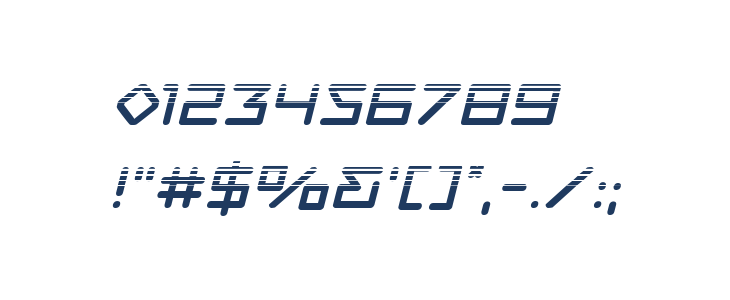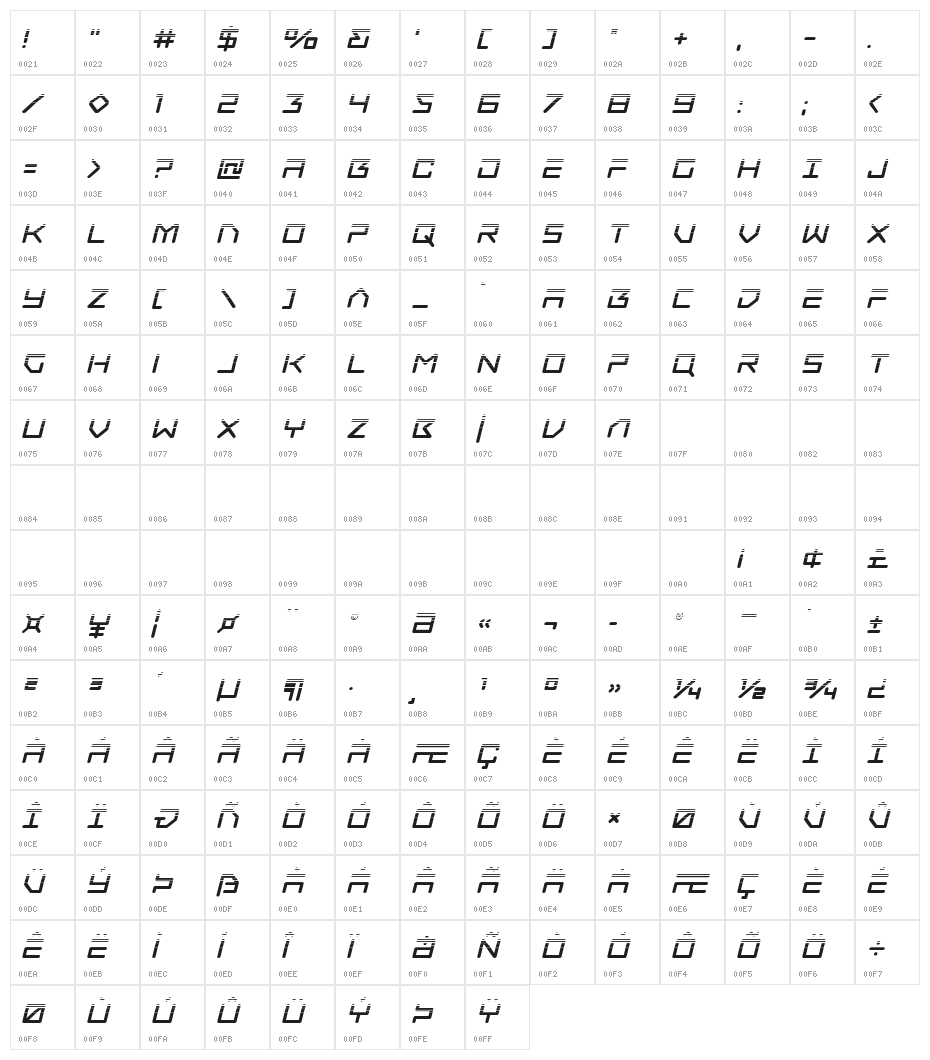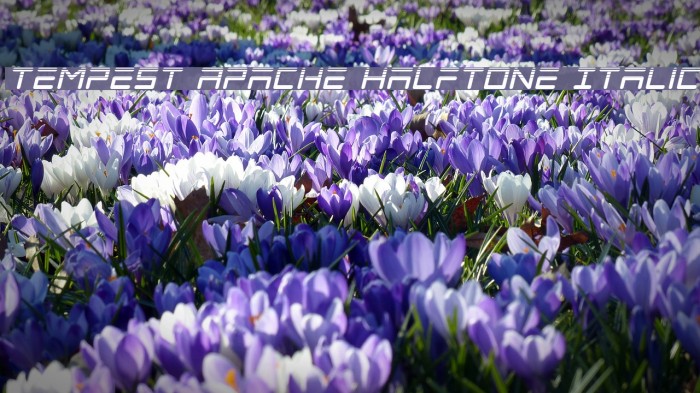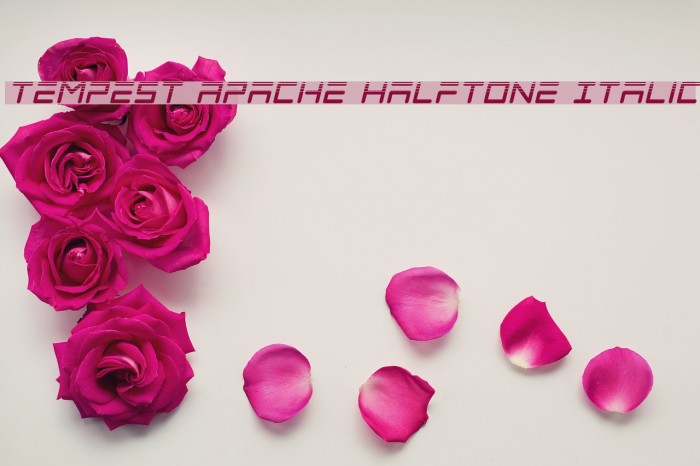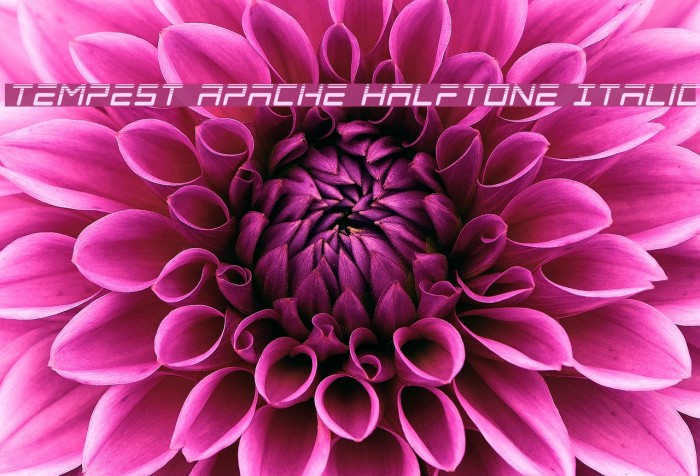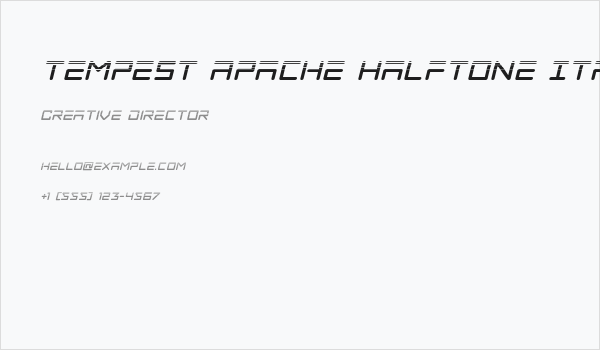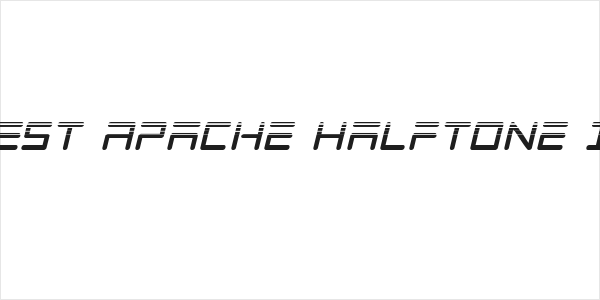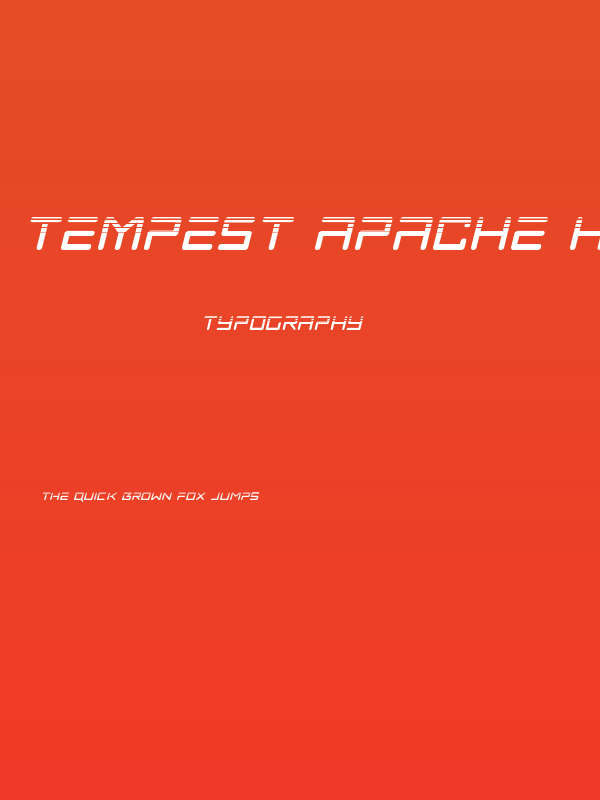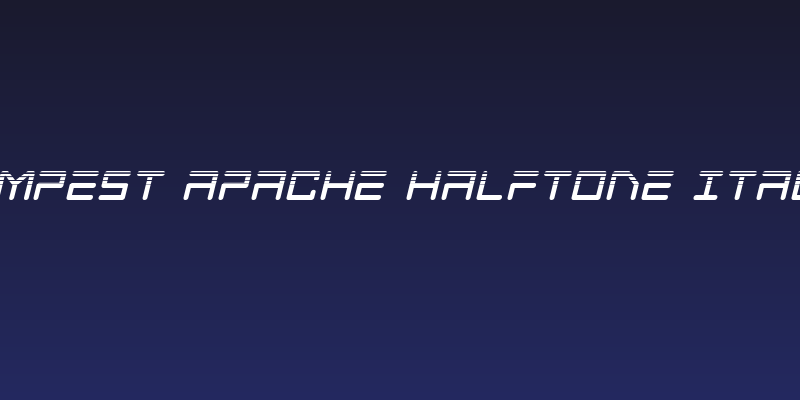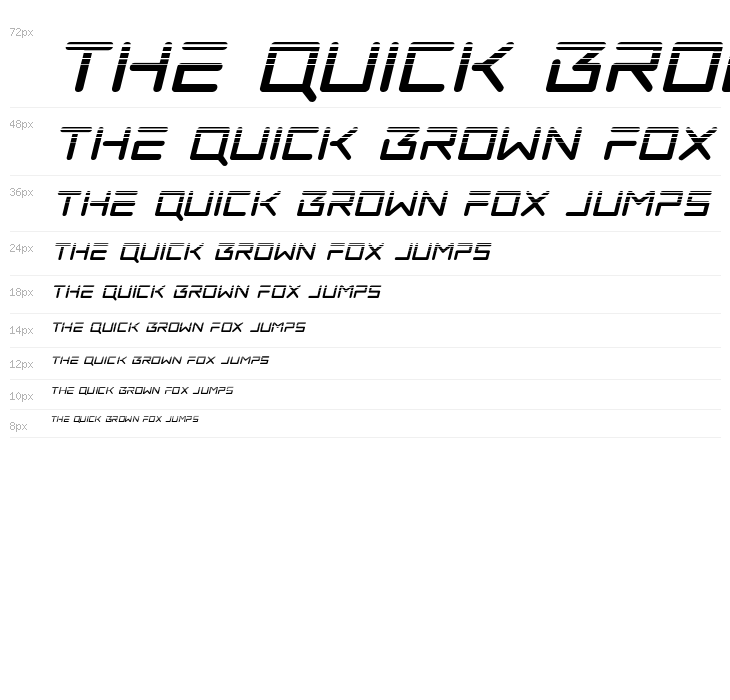
Tempest Apache Halftone Italic Font
Tempest Apache Halftone Italic Description
This font features a dynamic and futuristic design with a halftone effect that gives it a unique, tech-inspired appearance. The characters are italicized, adding a sense of motion and speed. The angular and geometric shapes of the letters are complemented by the halftone pattern, which creates a sense of depth and texture. This font is particularly eye-catching and would stand out in any design project. The uppercase and lowercase letters maintain a consistent style, while the numerals and special characters are crafted to match the overall aesthetic. The font's bold and modern look makes it suitable for a variety of creative applications.
| Proposed Projects | Ideal for tech-themed posters, video game graphics, futuristic branding, and sci-fi book covers. |